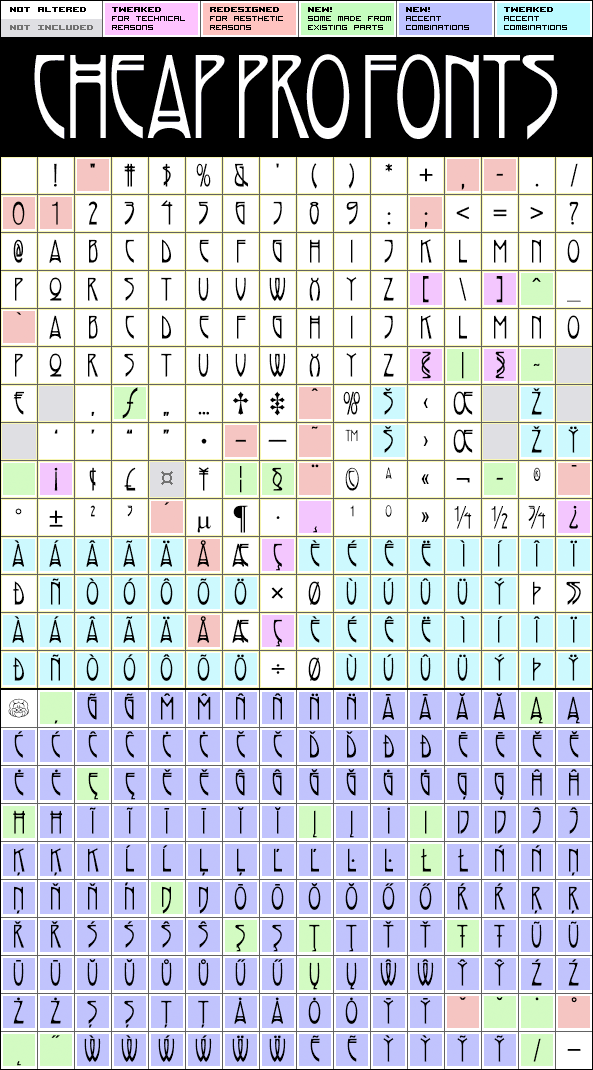
This font has a charming mix of the organic forms of the Art Nouveau style and the geometric forms of the Art Deco style - and it makes it work! :) Nick Curtis says: "A general-purpose Art Nouveau font that has been kicking around for a while under various names. As usual, redrawn for consistency and economy of line. Named, for no good reason, after the river that flows near Thomas Jefferson’s home, Monticello."
Rivanna NF Pro is a professionally reworked font that contains an extended character set for setting text in 65 languages requiring more than the basic A-Z!